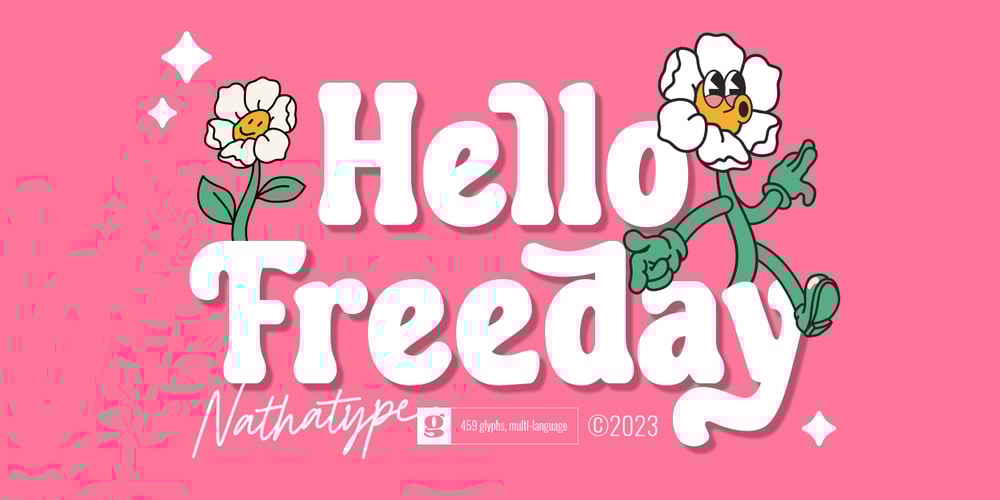
Hello Freeday
Hello Freeday font
Hello Freeday Font Family was designed by Donis Miftahudin and published by Nathatype. Hello Freeday contains 1 styles and family package options. Hello Freeday is a striking display font that combines a bold and clean font weight with playful swinging endings. With its uniform letter proportions and unique character details, this typeface effortlessly balances sophistication and a touch of whimsy. The bold and clean font weight of this font commands attention and adds a sense of strength and impact to your designs. Each letter is meticulously designed with precise geometric forms, resulting in a polished and professional appearance. The consistent proportions of the letters contribute to the font’s overall coherence, ensuring a harmonious and balanced visual experience. What sets this display apart is the charming swinging endings found in select letters. These decorative details add a hint of playfulness and movement to the font, injecting a touch of personality and delight into your designs. The swinging endings give the letters a sense of rhythm and flow, making Hello Freeday an excellent choice for projects that require a dynamic and captivating visual presence. The font’s bold and clean aesthetic ensures legibility and readability, even at smaller sizes. Enjoy the available features here.Features: Stylistic Sets Ligatures Multilingual Supports PUA Encoded Numerals and Punctuations Hello Freeday fits in headlines, logos, attention-grabbing titles, product packaging, greeting cards, branding materials, editorial layouts and website headers. Find out more ways to use this font by taking a look at the font preview.Thanks for purchasing our fonts. Hopefully, you have a great time using our font. Feel free to contact us anytime for further information or when you have trouble with the font. Thanks a lot and happy designing.